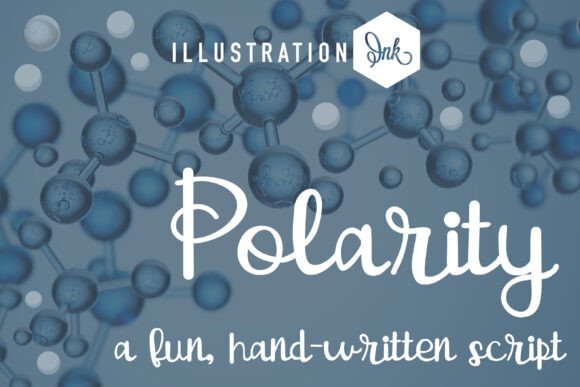
Polarity Font: A Hand-Crafted Upright Cursive with a Casual Feel
The Polarity Font is a unique and stylish hand-crafted font that is designed to give your text a personal touch. This upright cursive font has a casual feel that makes it perfect for a variety of uses, from invitations and greeting cards to blog posts and social media updates. In this article, we’ll take a closer look at the Polarity Font, its features, and how you can use it to add a touch of personality to your writing.
What is a Hand-Crafted Font?
A hand-crafted font is a type of font that is designed to look like it was written by hand. These fonts are often used to add a personal touch to text, making it look like it was written by a person rather than a computer. Hand-crafted fonts can be either formal or informal, and they can be used for a variety of purposes.
Hand-crafted fonts are often used for:
- Invitations and greeting cards
- Blog posts and social media updates
- Product labels and packaging
- Advertising and marketing materials
Polarity Font: A Unique Upright Cursive
The Polarity Font is a hand-crafted upright cursive font with a casual feel. It is designed to look like it was written by hand, with a natural and fluid look that makes it perfect for a variety of uses. The font includes a bold version, making it easy to use for headlines and titles.
The Polarity Font features:
- Upright cursive design
- Casual feel
- Hand-crafted look
- Bold version included
The Benefits of Using Hand-Crafted Fonts
Hand-crafted fonts like the Polarity Font offer a number of benefits, including:
- Personal touch: Hand-crafted fonts add a personal touch to your text, making it look like it was written by a person rather than a computer.
- Unique look: Hand-crafted fonts have a unique look that sets them apart from other fonts.
- Flexibility: Hand-crafted fonts can be used for a variety of purposes, from formal to informal.
- Emotional connection: Hand-crafted fonts can help create an emotional connection with your readers, making them feel like they’re reading a personal letter rather than a computer-generated text.
How to Use Hand-Crafted Fonts
Hand-crafted fonts like the Polarity Font are easy to use and can be incorporated into a variety of projects. Here are some tips for using hand-crafted fonts:
- Use for headings and titles: Hand-crafted fonts are perfect for headings and titles, adding a touch of personality to your text.
- Use for body text: Hand-crafted fonts can also be used for body text, adding a personal touch to your writing.
- Experiment with different styles: Hand-crafted fonts come in a variety of styles, so don’t be afraid to experiment and find the one that works best for your project.
- Pair with other fonts: Hand-crafted fonts can be paired with other fonts to create a unique look.
Tips for Choosing the Right Hand-Crafted Font
With so many hand-crafted fonts available, it can be difficult to choose the right one for your project. Here are some tips for choosing the right hand-crafted font:
- Consider the purpose of your project: Different projects require different fonts. For example, a formal invitation will require a different font than a social media update.
- Think about your brand: Choose a font that reflects your brand’s personality and style.
- Look for legibility: Choose a font that is easy to read and understand.
- Experiment with different styles: Don’t be afraid to try out different fonts and styles until you find the one that works best for your project.
The Polarity Font is a unique and stylish hand-crafted font that is perfect for adding a personal touch to your text. With its upright cursive design and casual feel, it’s perfect for a variety of uses, from invitations and greeting cards to blog posts and social media updates. By understanding the benefits of using hand-crafted fonts and how to use them effectively, you can add a touch of personality to your writing and make it stand out from the crowd.